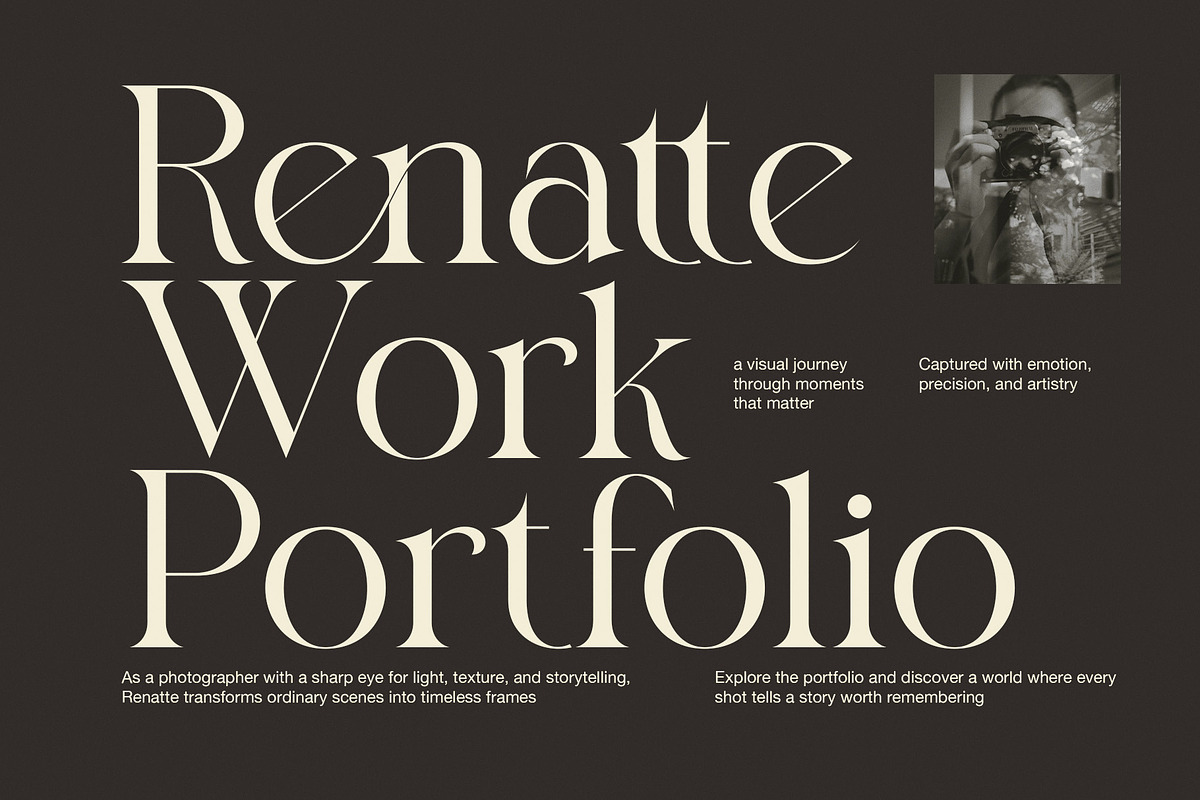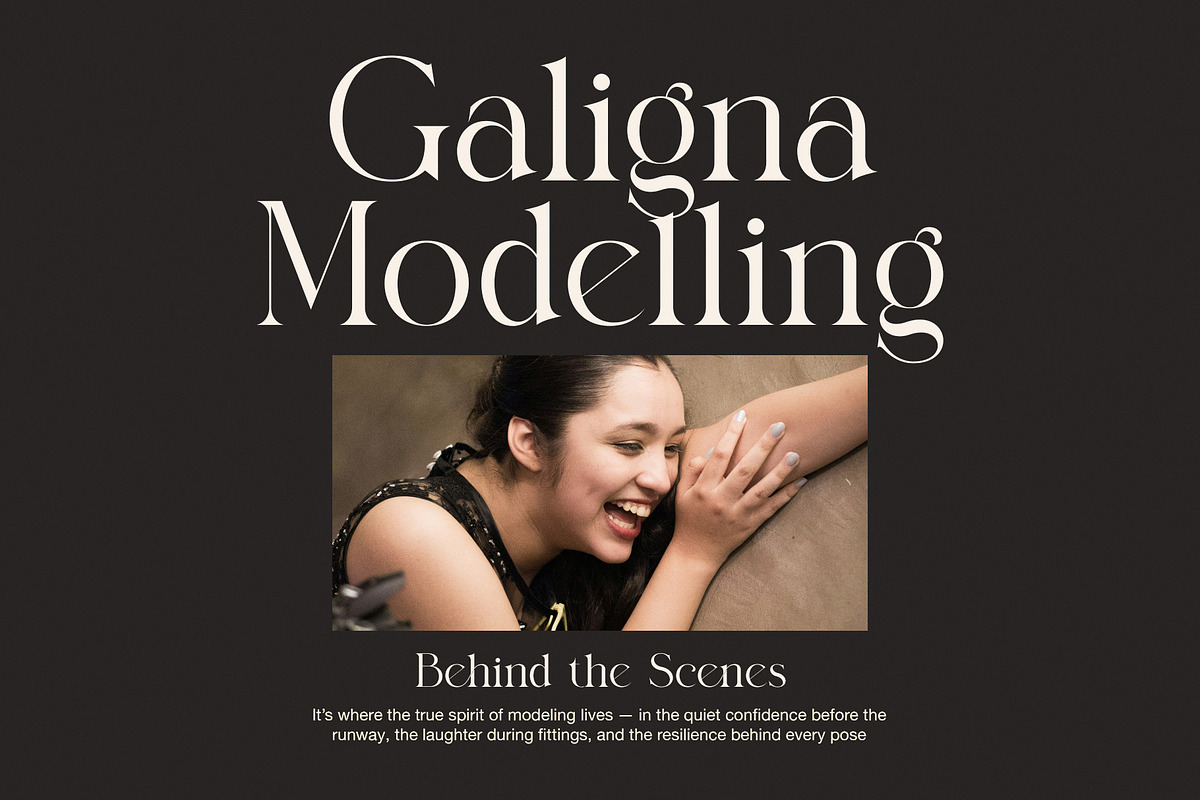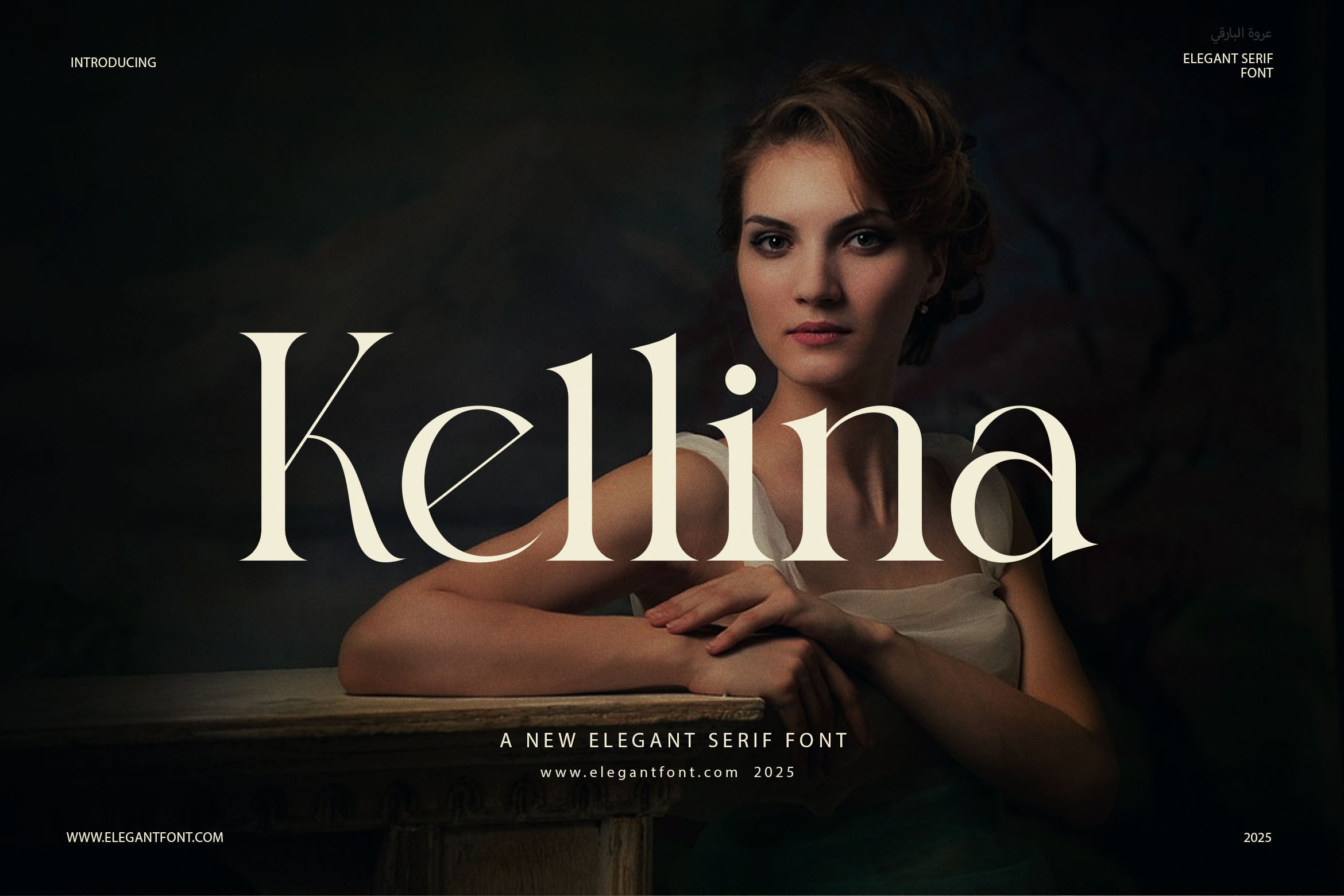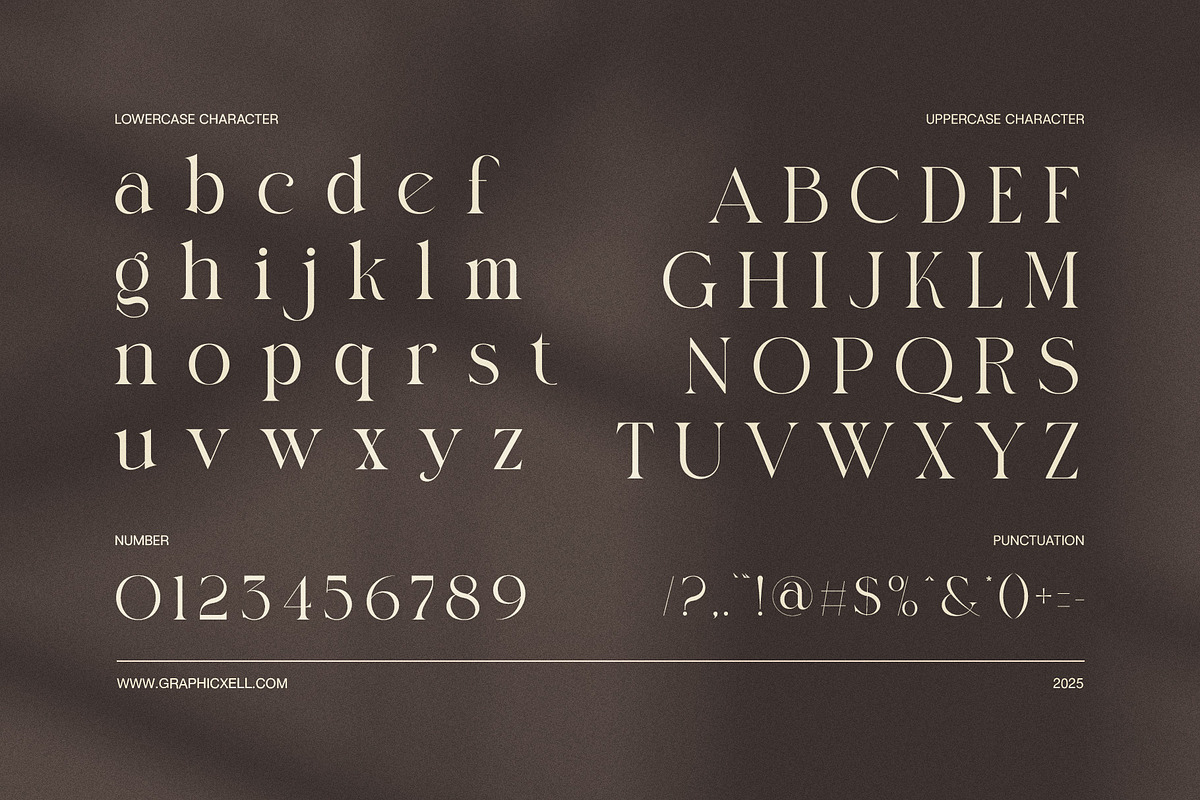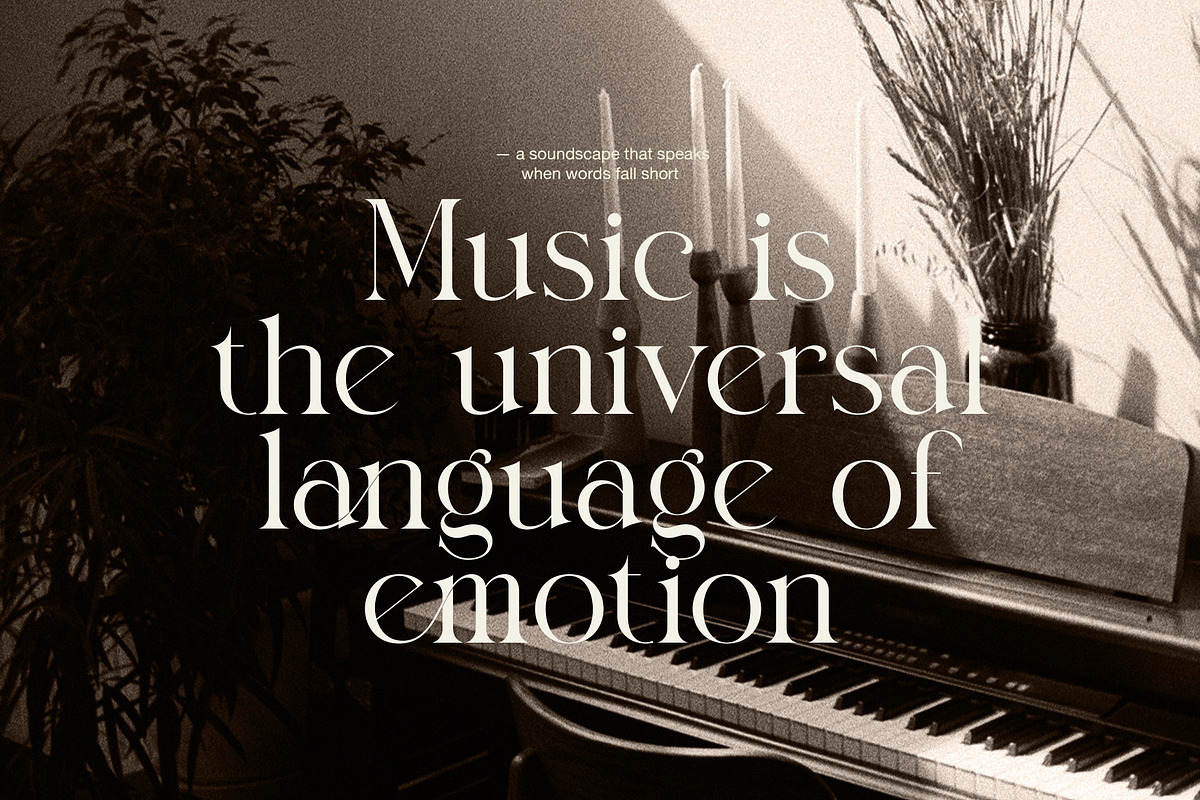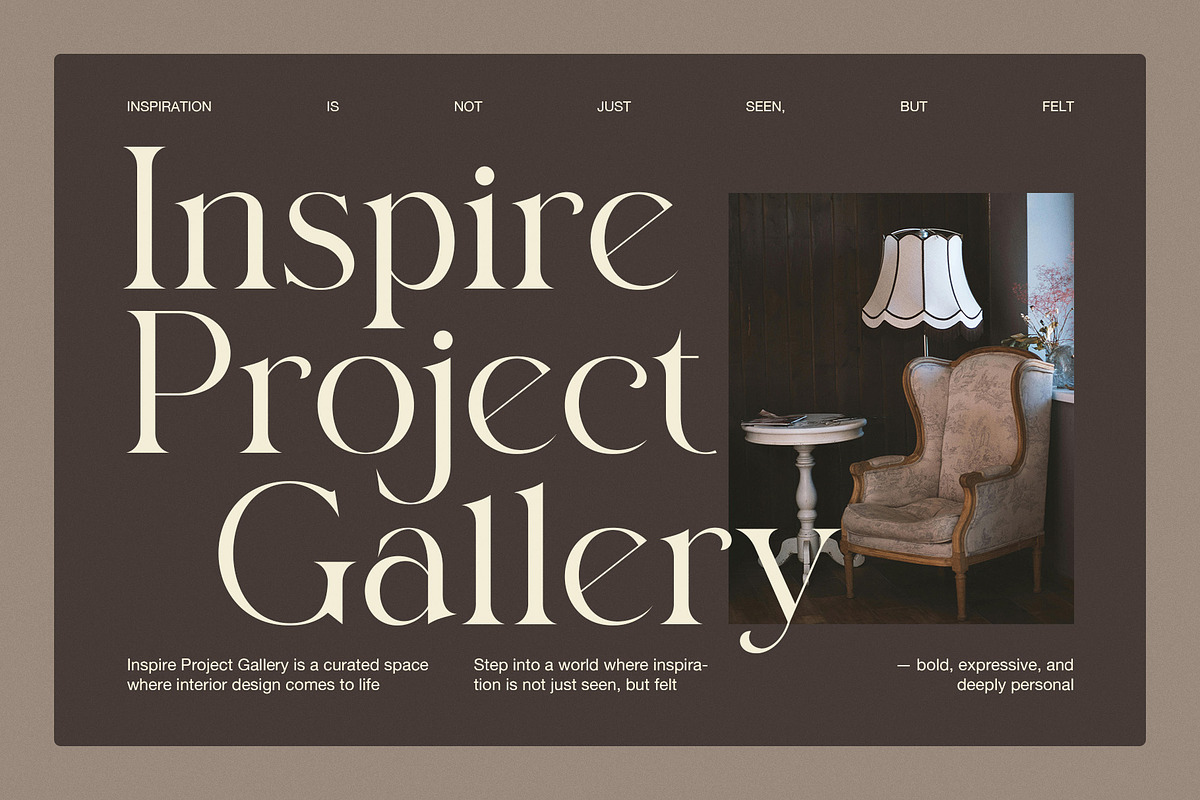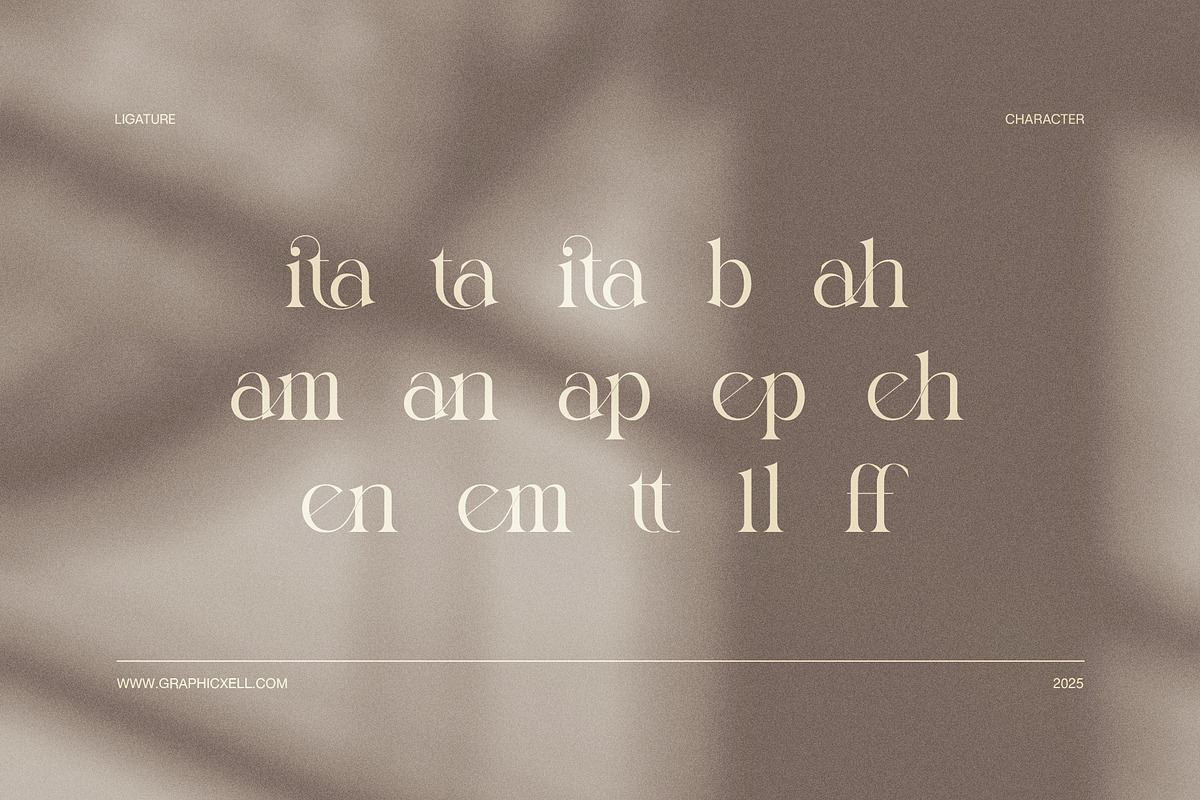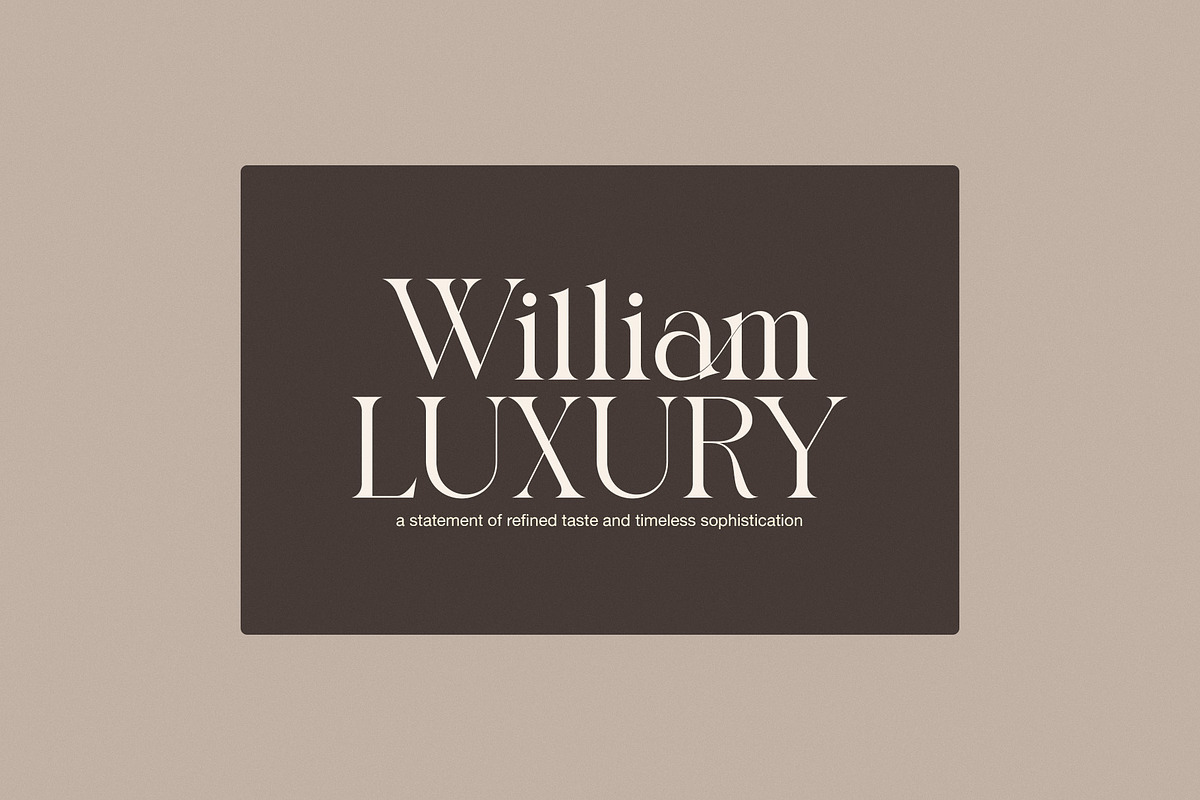
Kellina Elegant Serif Font
Kellina Elegant Serif – Where Style Meets Sophistication
An Elegant Serif with Lasting Impact
Kellina Elegant Serif is a graceful and refined typeface designed to bring timeless beauty to your work. With its soft curves, high contrast, and classic proportions, it creates a luxurious feel from the first glance. As a result, your designs will look polished, high-end, and memorable.
Crafted for Versatility and Beauty
This font is more than just beautiful—it’s highly functional. Because of its elegant structure, it performs well in both print and digital formats. Whether you're designing a wedding invitation, a luxury logo, or editorial content, Kellina adapts effortlessly. Additionally, it reads clearly at various sizes, which ensures visual impact on both large titles and body text.
Perfect for Elegant Design Projects
Kellina works best in projects that demand sophistication. Not only does it elevate branding, but it also enhances layout consistency. Therefore, designers can rely on it for:
Premium branding and logo designs
Wedding stationery and invitations
Social media graphics and quote posts
Editorial spreads and magazine titles
Packaging for beauty or lifestyle products
Balanced Between Classic and Modern
Although Kellina is rooted in traditional serif forms, it also includes modern updates. For instance, its clean finish and subtle details bring a fresh, contemporary edge. Moreover, the smooth flow between letters adds a touch of charm. Because of this blend, it suits both minimal and ornate aesthetics.
Why Choose Kellina for Your Work?
Unlike overly decorative fonts, Kellina offers clarity and elegance in equal measure. It doesn’t overwhelm your content—instead, it complements it. Furthermore, it supports multiple formats such as desktop, web, app, and e‑pub, giving you total design freedom.
In conclusion, Kellina Elegant Serif is the perfect choice for creatives who want to communicate elegance, trust, and professionalism—while keeping things visually stunning.-